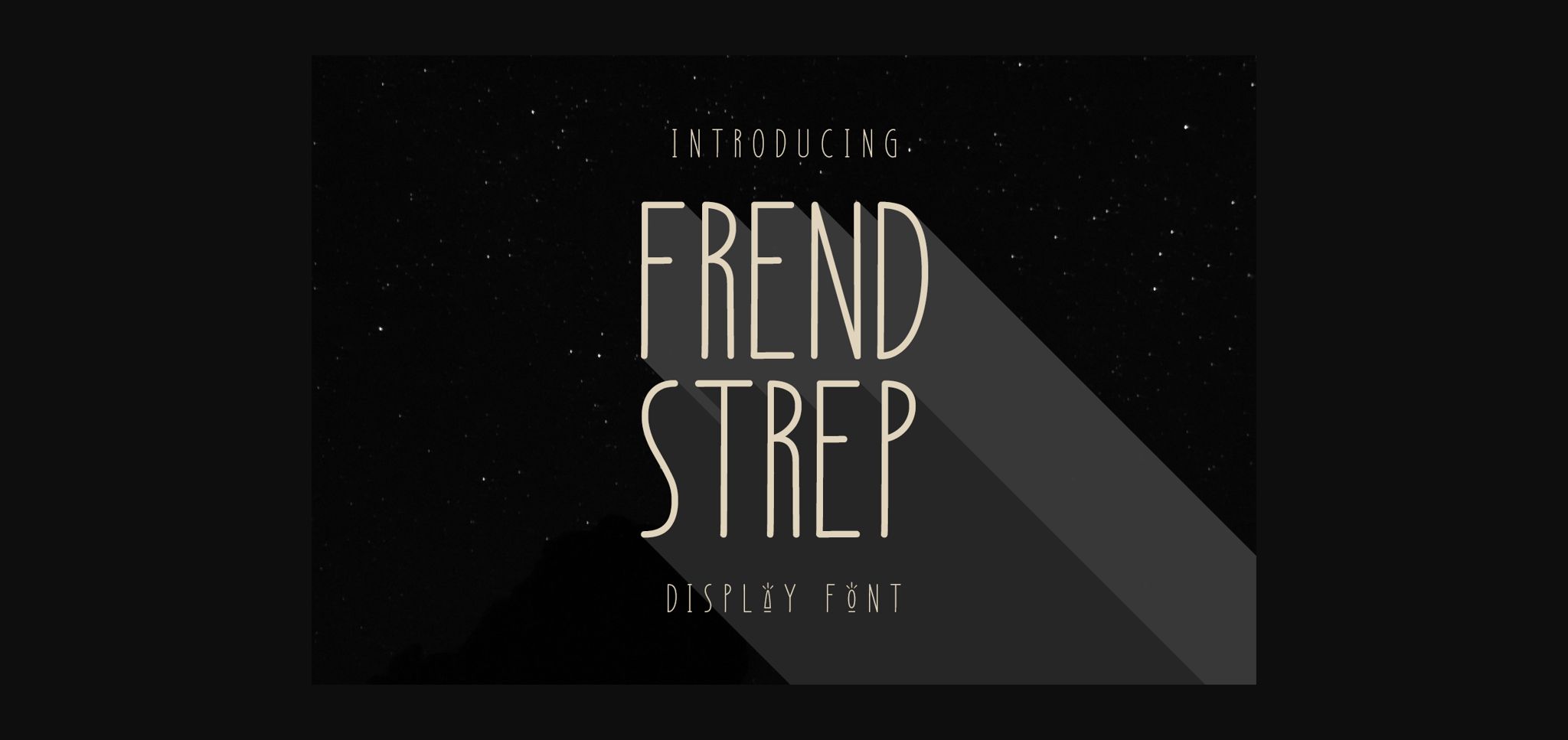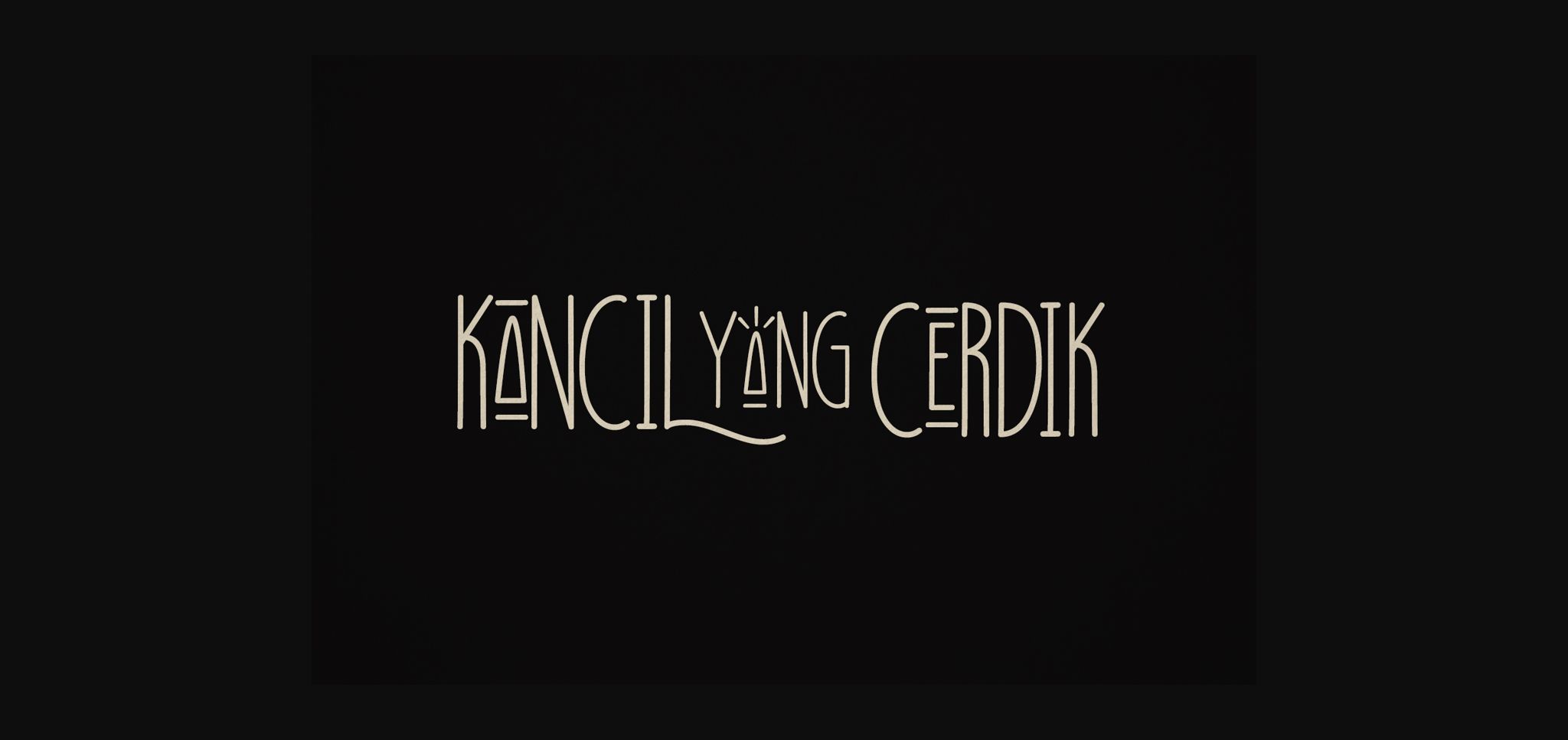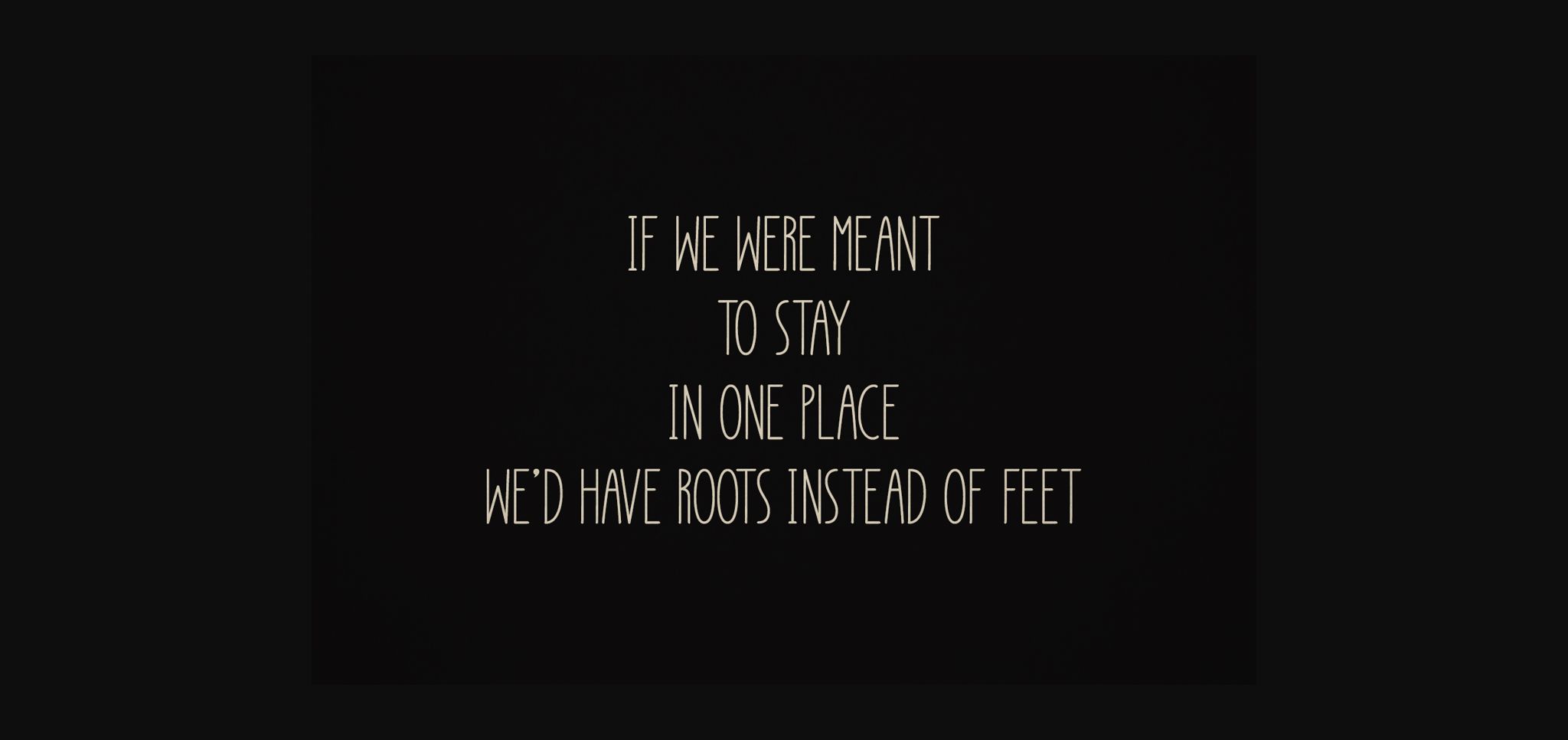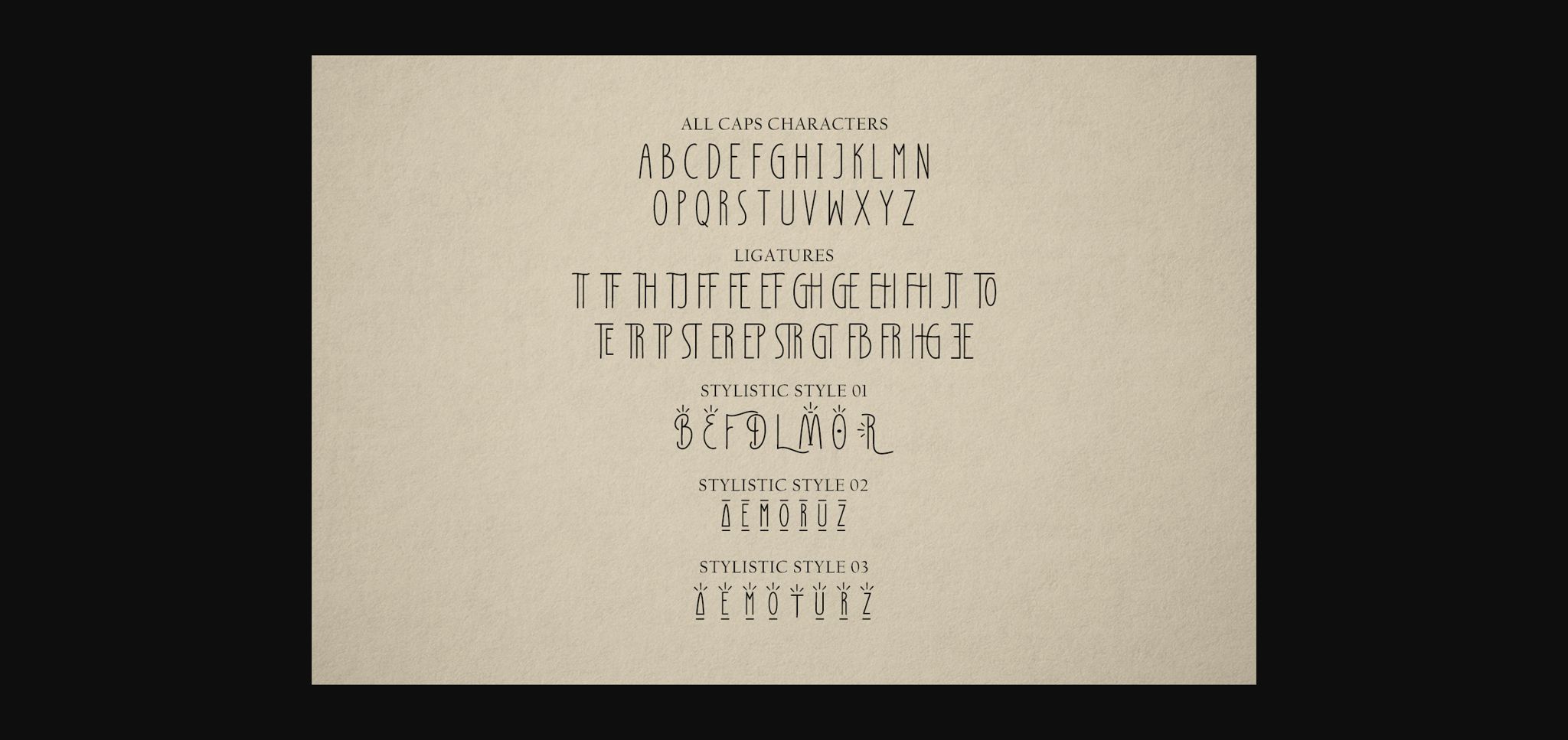
About Frend Strep Font
Frend Strep is a friendly and narrow Sans Seif font that will give your designs an authentic handcrafted feel. Frend Strep is perfectly suited to signature, stationery, logo, typography quotes, magazine or book cover, website header, clothing, branding, packaging design, and more.